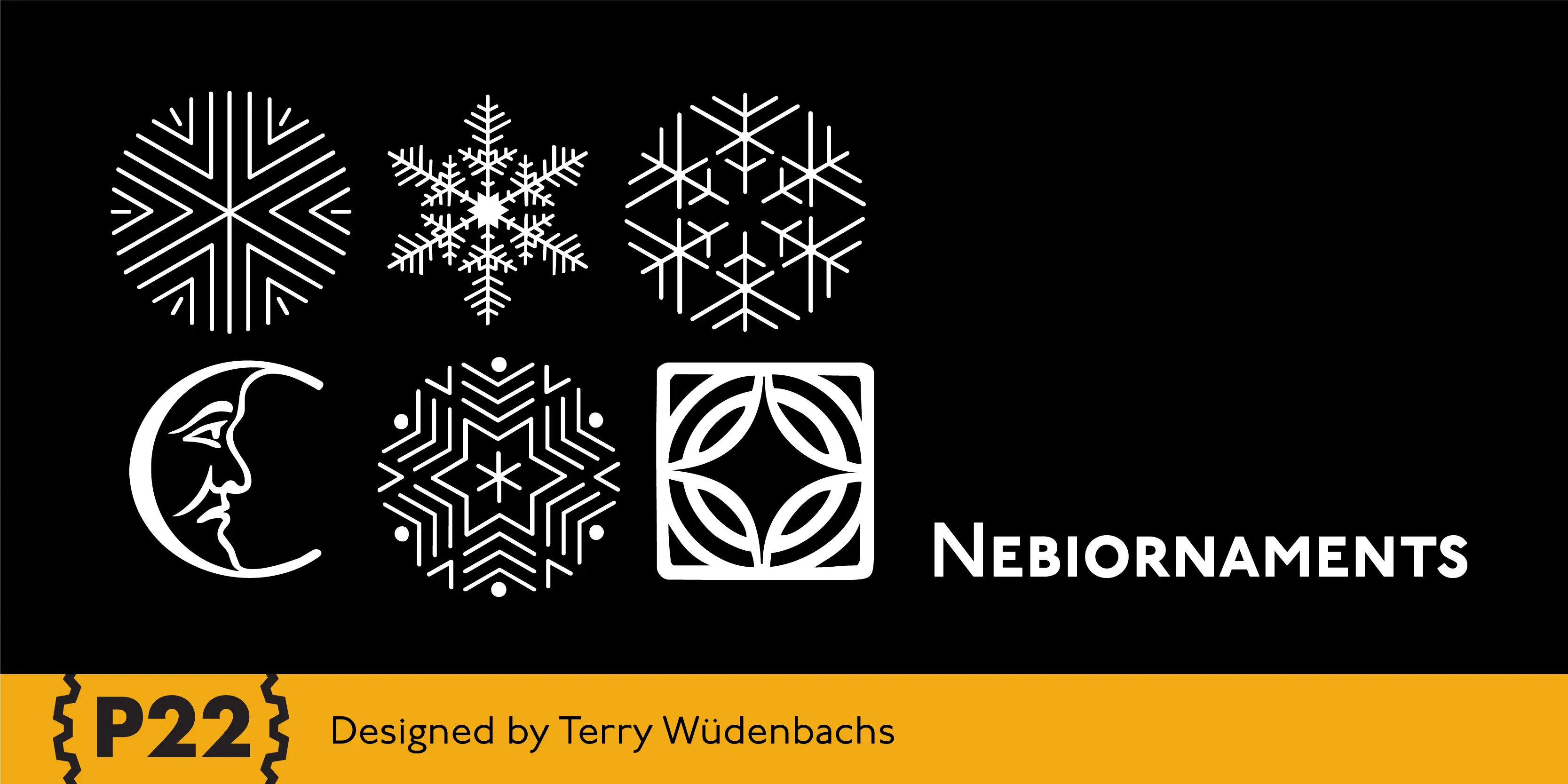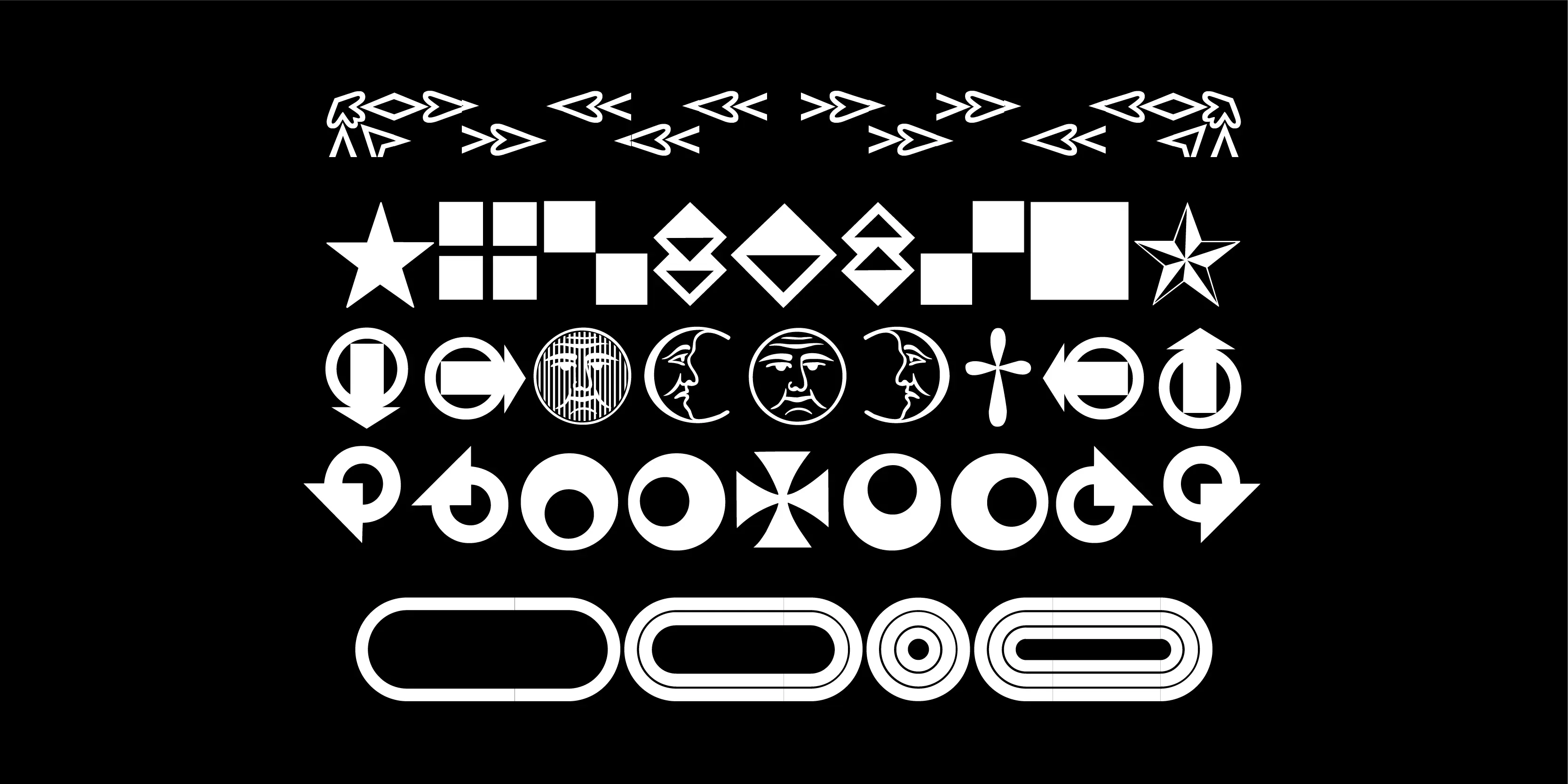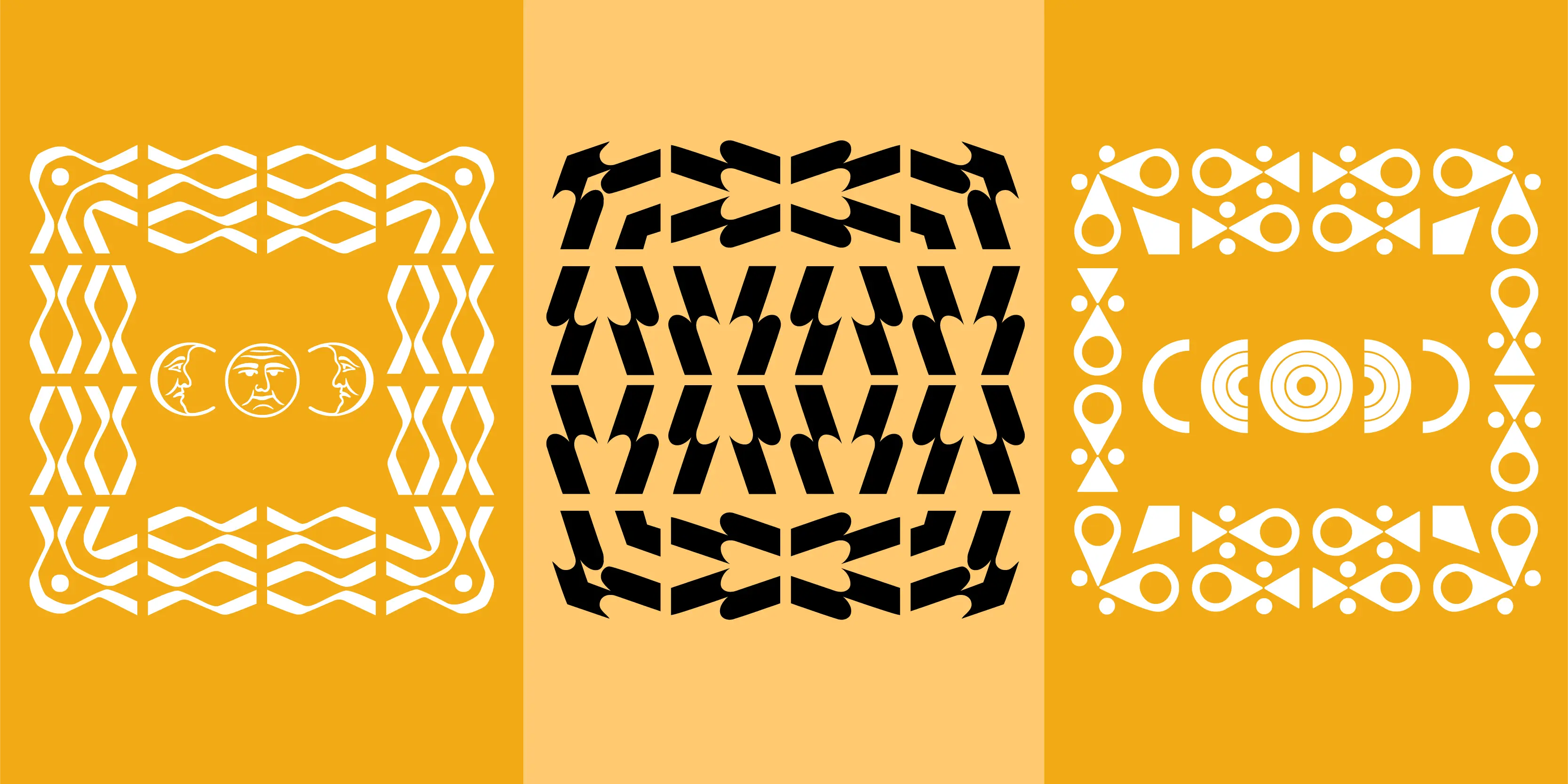
Nebiornaments Font
Nebiornaments
P22 Nebiornaments contains over 100 ornaments based on the Italian Nebiolo Type Foundry designs of the 1950s. Many of these ornaments are designed to create complex patterns and continuous borders. The simple geometric shapes allow for endless combinations for a wide variety of uses.